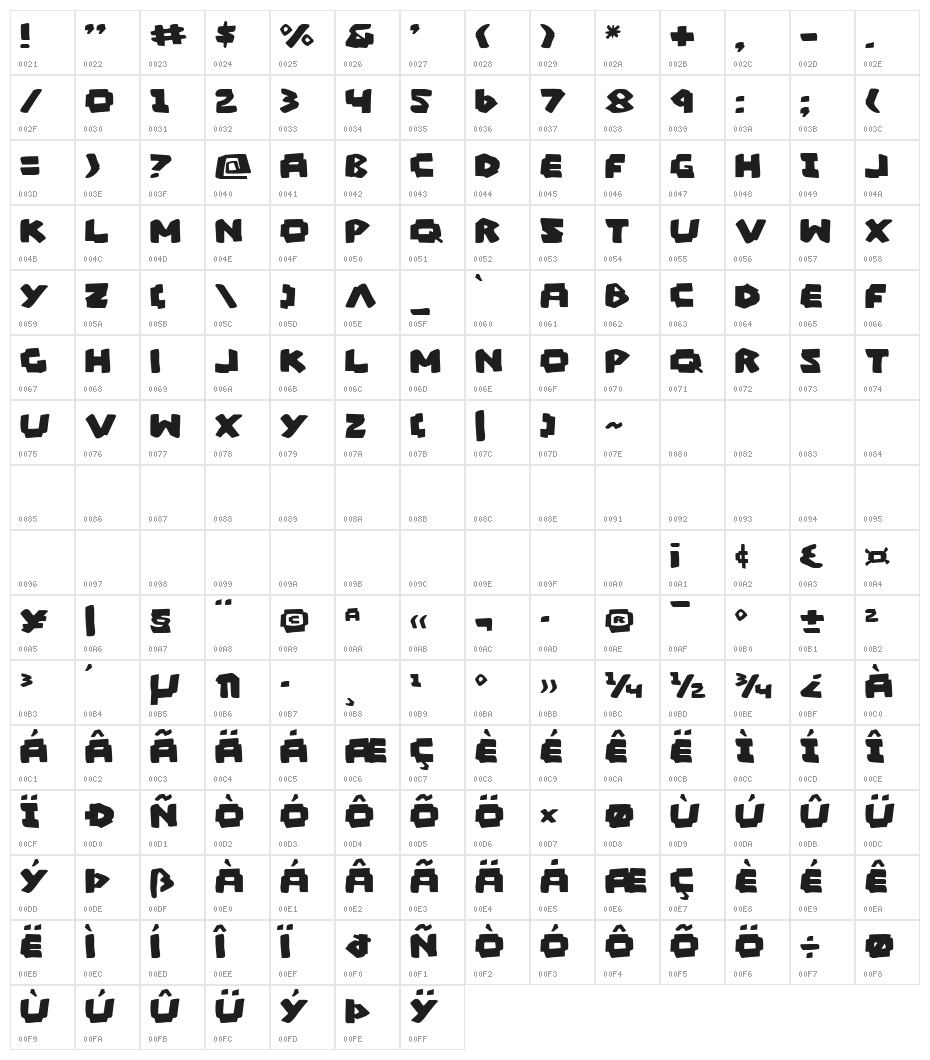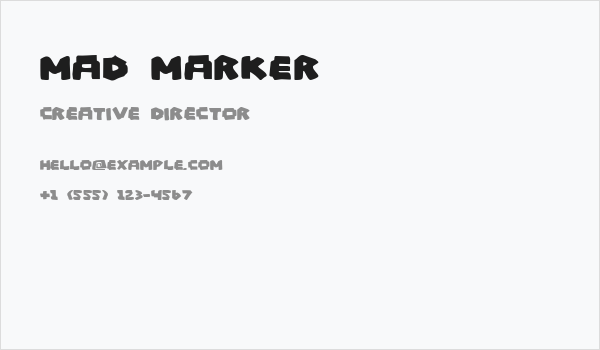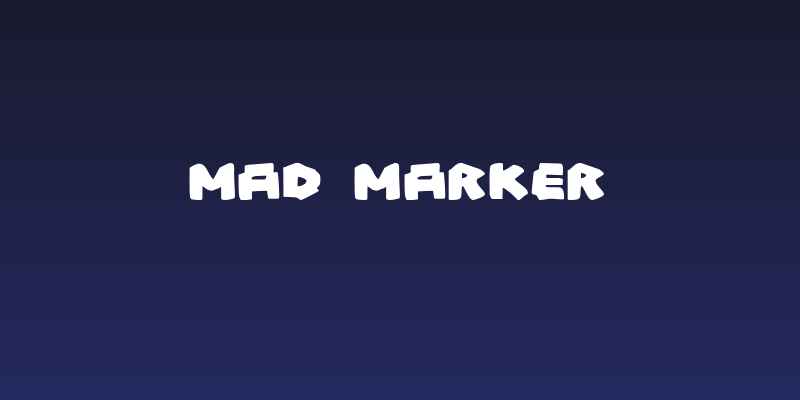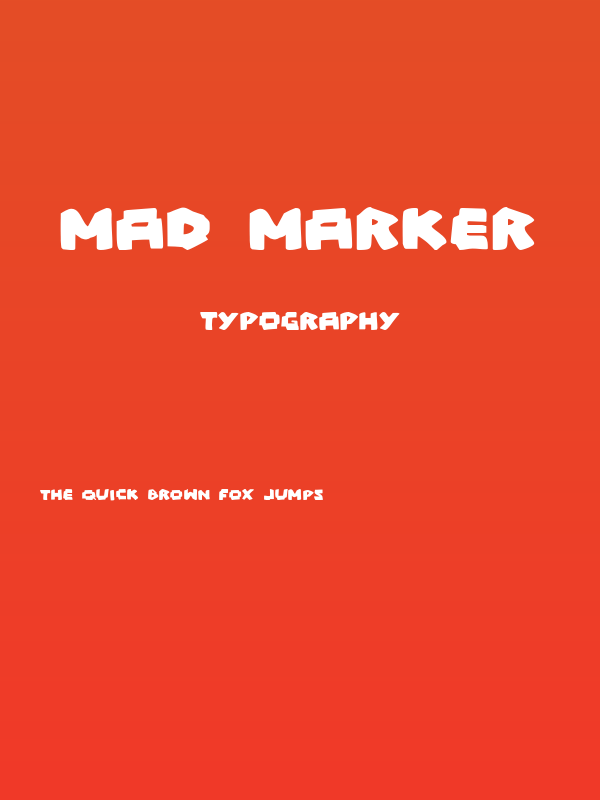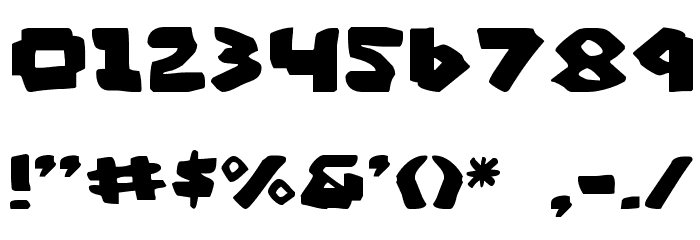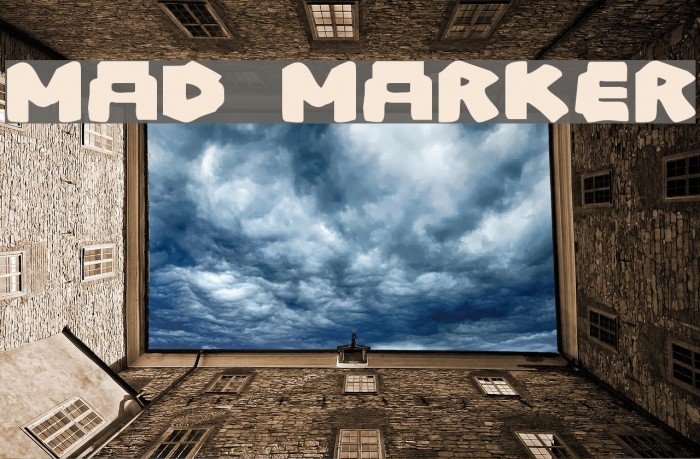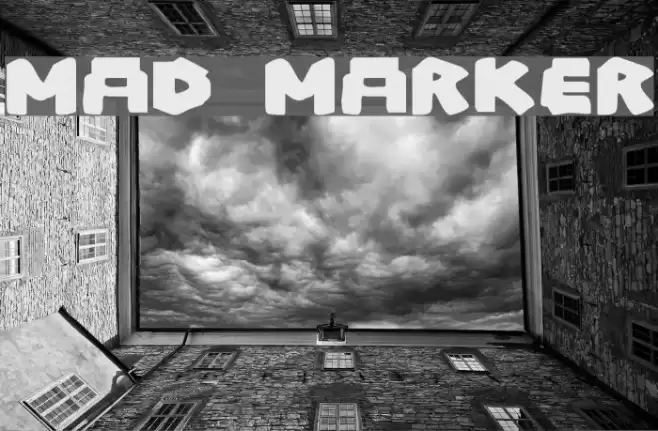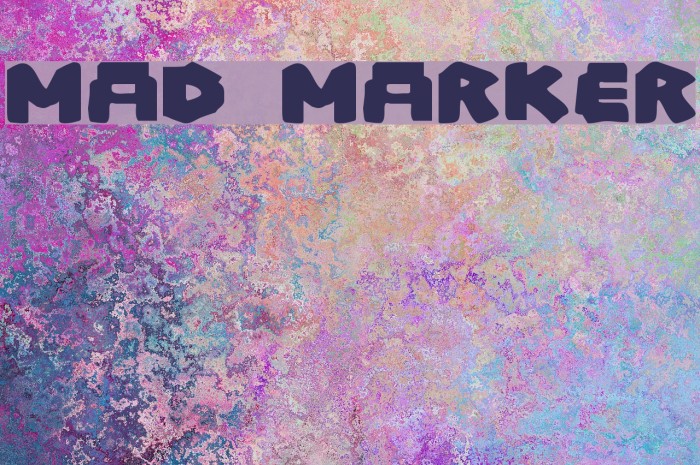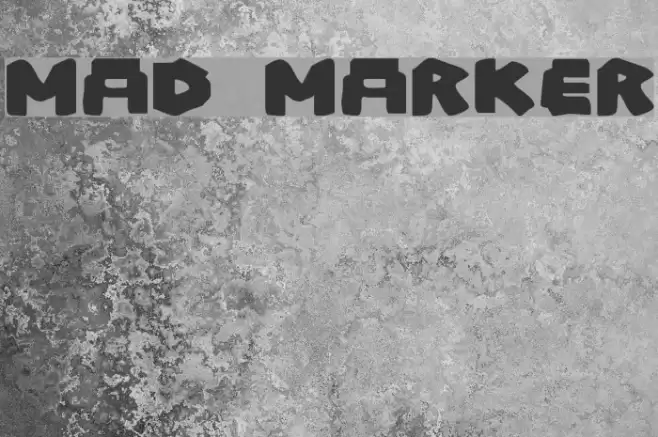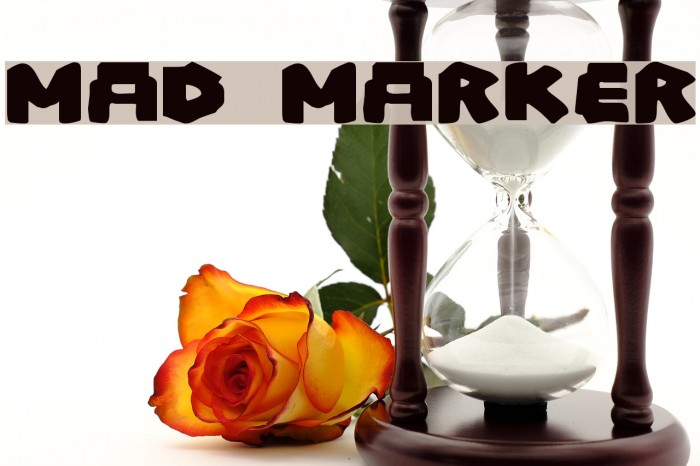
Mad Marker Font
Mad Marker Description
This font features a bold and playful style with a hand-drawn appearance, resembling marker strokes. The characters are thick and slightly irregular, giving a casual and energetic feel. The uppercase and lowercase letters maintain a consistent weight, while the numbers and special characters follow the same design ethos. The overall look is dynamic and informal, making it suitable for creative and fun projects. The font's unique character shapes and bold presence make it stand out, ideal for capturing attention in various design contexts.
| Overall Style | Playful, Casual, Energetic |
| Proposed Projects | Ideal for children's book covers, playful posters, event flyers, and branding for creative products. |